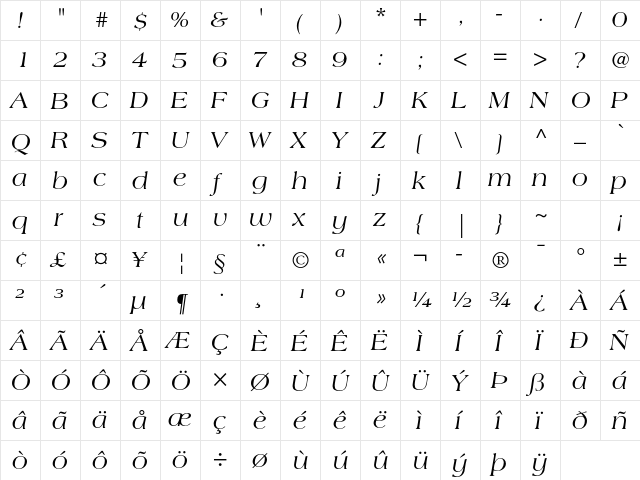
Americana Std Italic
| Designer | Richard Isbell |
Design Context for Americana Std Typeface
Americana Std offers clean, dependable letterforms without strong stylistic allegiance, making it a practical choice for designers who need flexibility. The slanted form adds forward momentum and visual energy.
Pro Tip: Try Americana Std for annotation and caption copy alongside an upright companion — the contrast in angle creates a dynamic but ordered typographic system.